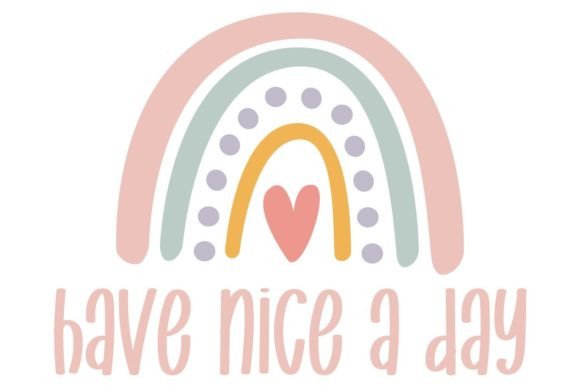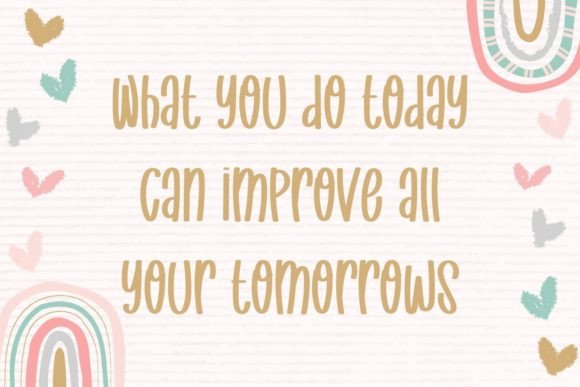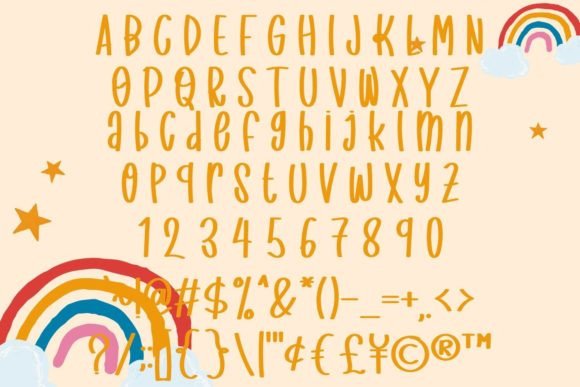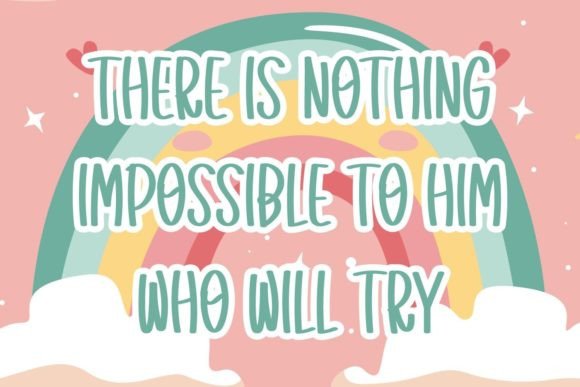
Introduction to Happy Rainbows Font
Have you ever been in the midst of a creative project, and suddenly, the perfect font pops into your mind? For designers, this is a moment of pure joy, and it’s exactly what happens when you stumble upon the Happy Rainbows Font. This cute and trendy display font is a treasure trove of fun and casual vibes, making it an ideal choice for a wide range of design ideas.
| 👤 Author | Planetz studio |
As a valuable design resource, the Happy Rainbows Font offers a unique opportunity to elevate your designs with a high-quality, eye-catching element. With its transparent background, this font is perfect for adding a pop of color and whimsy to your creations. Whether you’re working on a graphic design project or a social media post, the Happy Rainbows Font is sure to bring a smile to your audience’s face.
Key Features of Happy Rainbows Font
- Unique and playful design, perfect for creative projects and designs that require a touch of whimsy.
- Perfect for adding a pop of color and fun to designs, such as social media graphics, posters, and digital illustrations.
Honest Review: Happy Rainbows Font
I recently stumbled upon the Happy Rainbows Font and I must say, it’s a delightful addition to any creative project. The font’s whimsical design and bright colors make it perfect for adding a touch of personality to your work.
- What works well: ✨ The font is incredibly versatile and can be used for a variety of applications, from children’s books to social media graphics. It’s also available for free download, making it a great resource for designers on a budget.
- What works well: ✨ The font’s transparent background allows for seamless integration with other design elements, making it easy to create stunning visuals.
However, I do have a few minor complaints. ⚠️ The font is a bit too playful for some projects, and may not be suitable for more formal or professional designs. Additionally, the font’s bold weight can sometimes be overwhelming, so it’s best to use it in moderation.
Overall, I’m impressed with the Happy Rainbows Font. It’s a high-quality design resource that can add a lot of personality to your work. With its free download option, it’s definitely worth checking out for any designer looking to add some creativity to their projects.
Tips for Getting the Most Out of Happy Rainbows Font
To get the most out of the Happy Rainbows Font, consider using it in conjunction with other high-quality design elements, such as graphics and images. You can also experiment with different font sizes, colors, and styles to achieve a unique look.
The Happy Rainbows Font is perfect for a variety of creative projects, including social media graphics, posters, and invitations. Its playful and colorful design makes it ideal for kids’ parties, weddings, and other fun events. You can also use it for free download on websites and blogs that feature creative content.